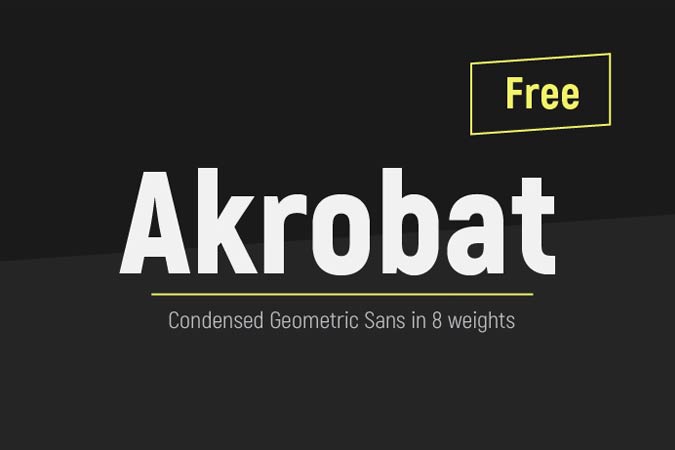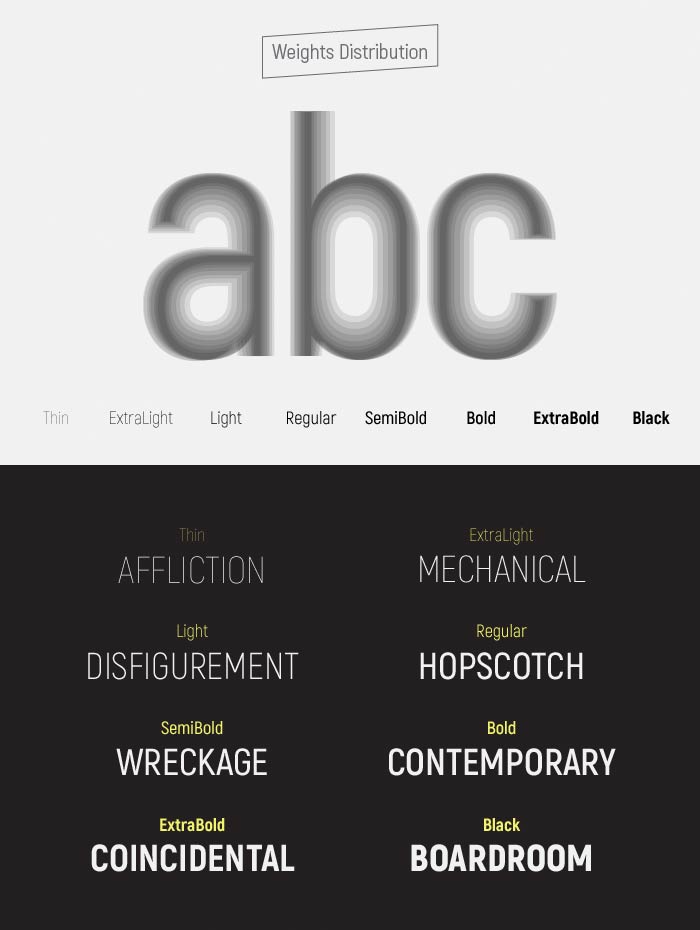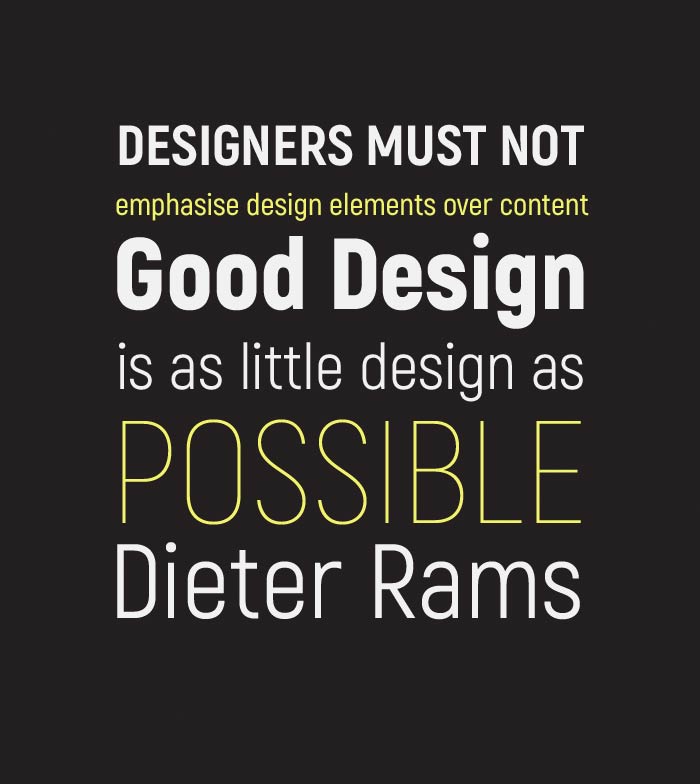
Akrobat is a free condensed geometric sans serif font family that comes with 8 weights from thin to black. The narrow proportions of the character designs make this font suitable for headlines and big size displays, and also its geometrical style makes this font suitable for product or architecture editorial designs too.
- Designer: Plamen Motev